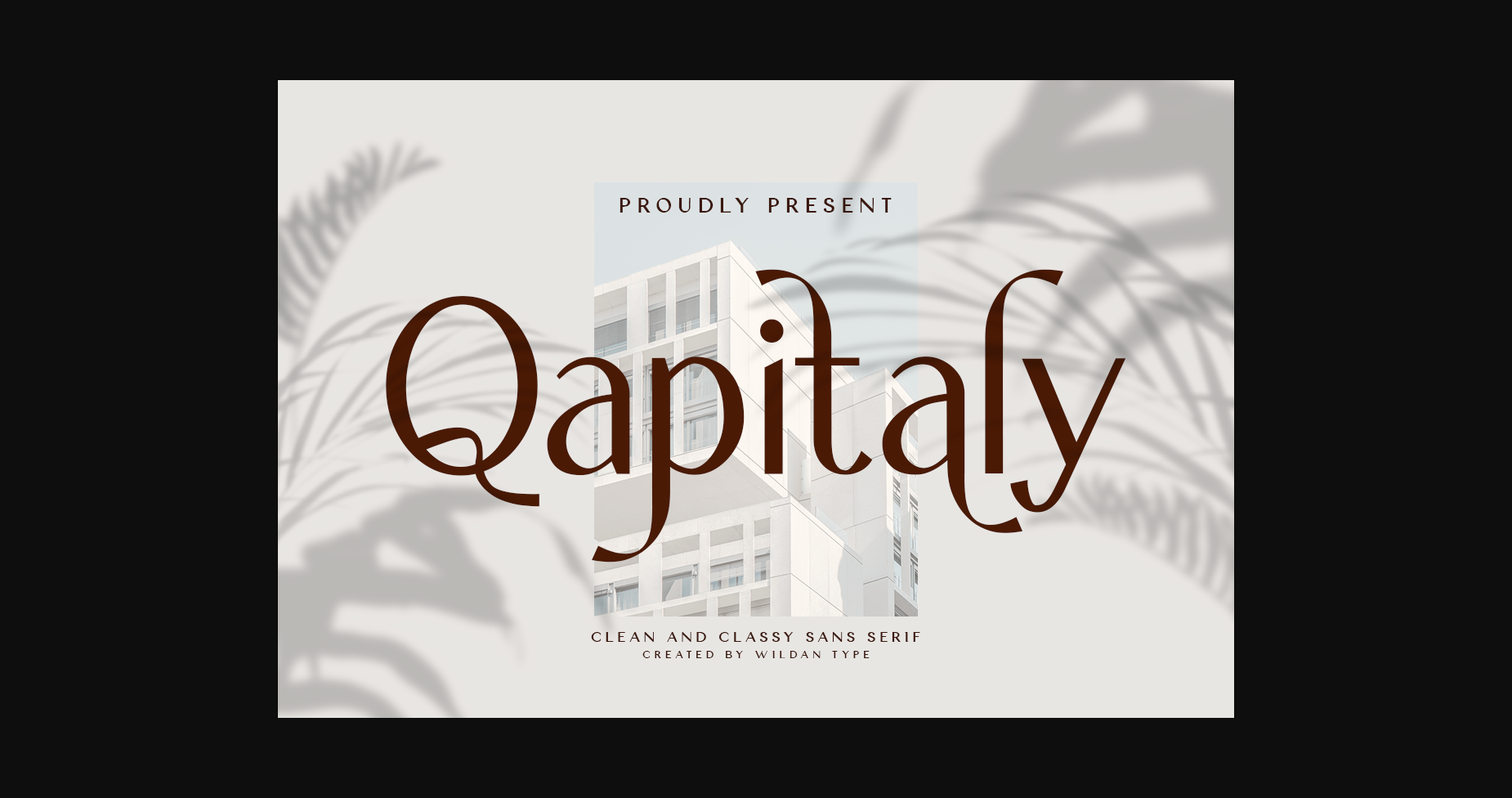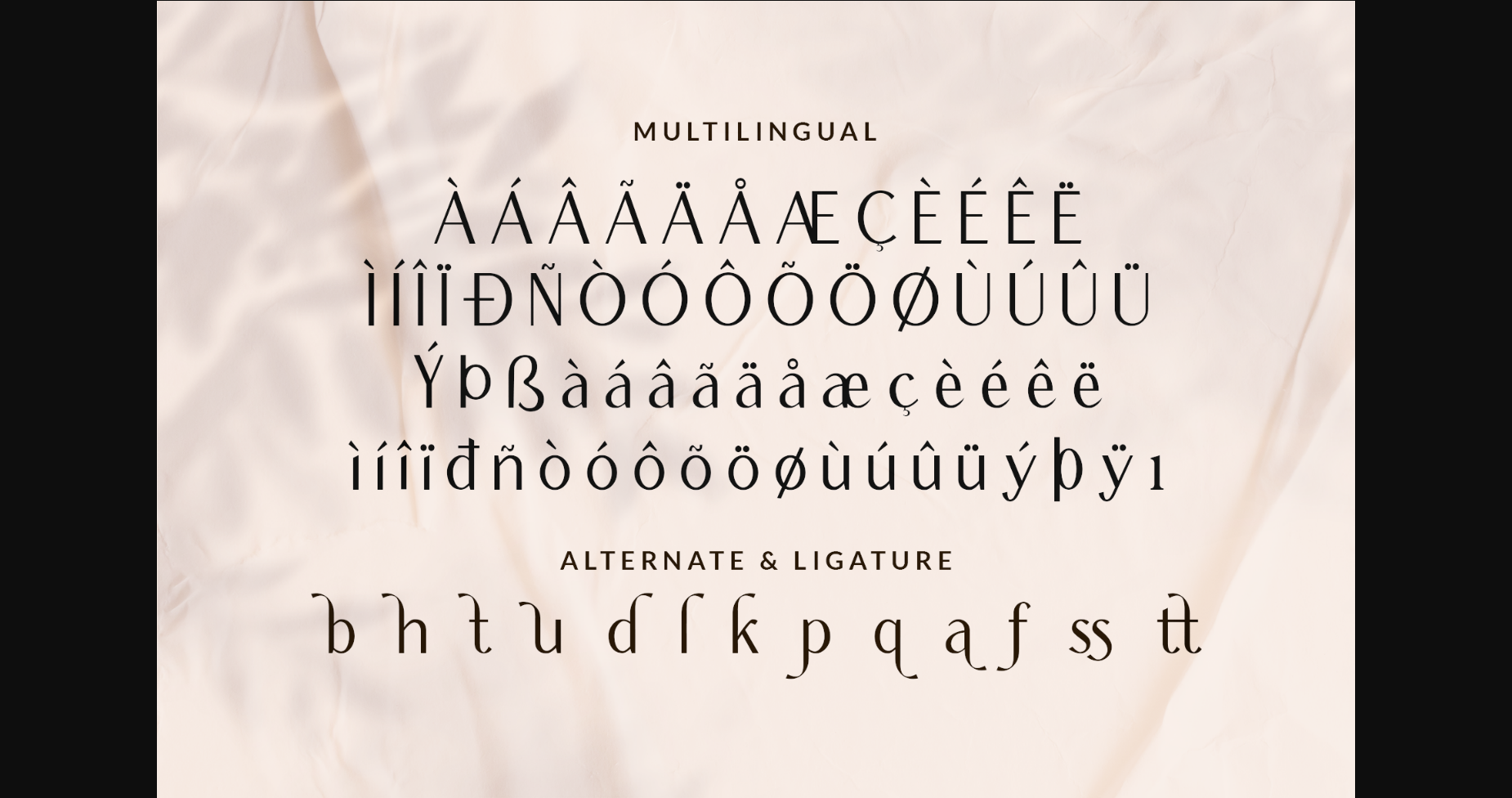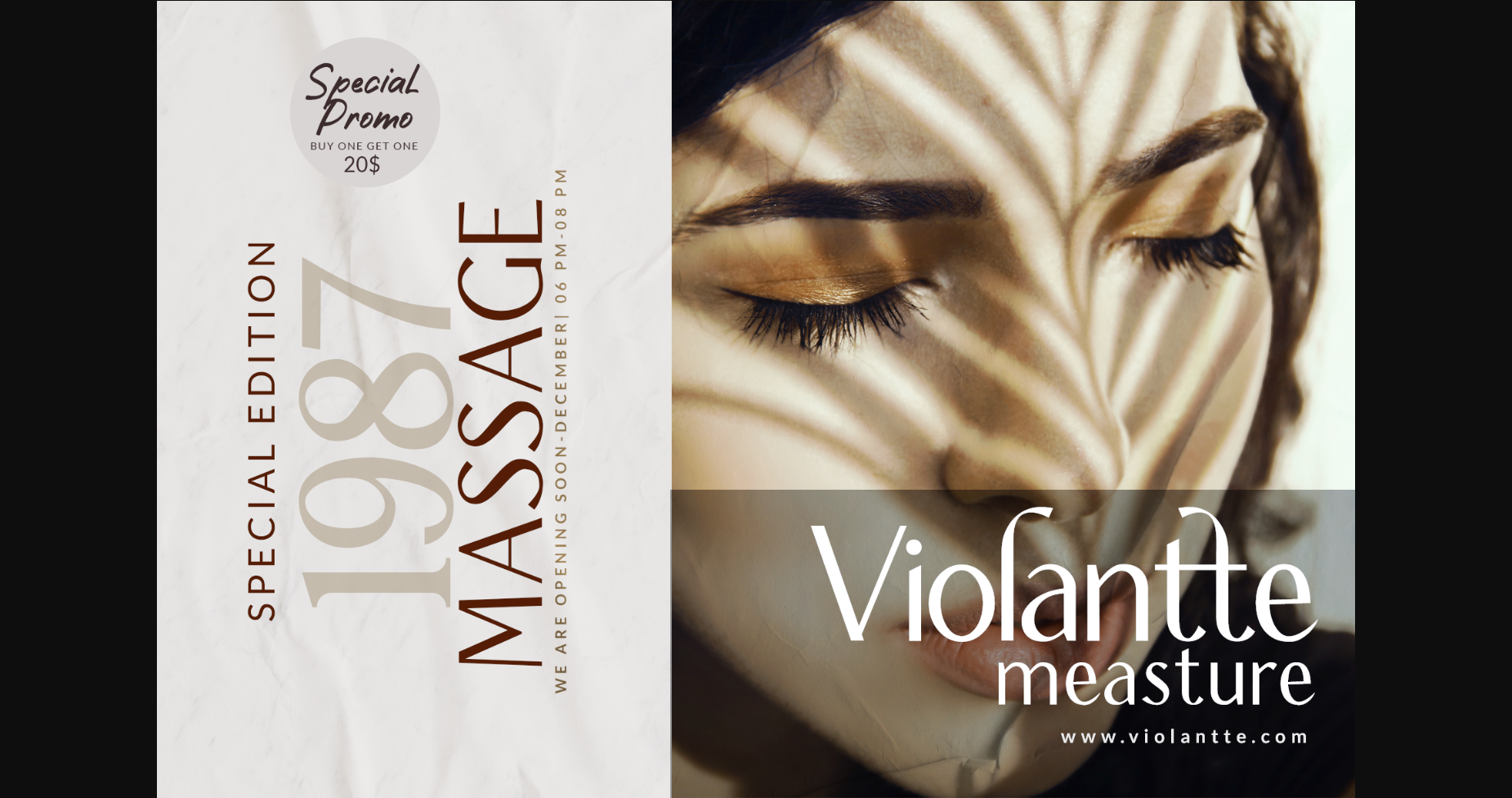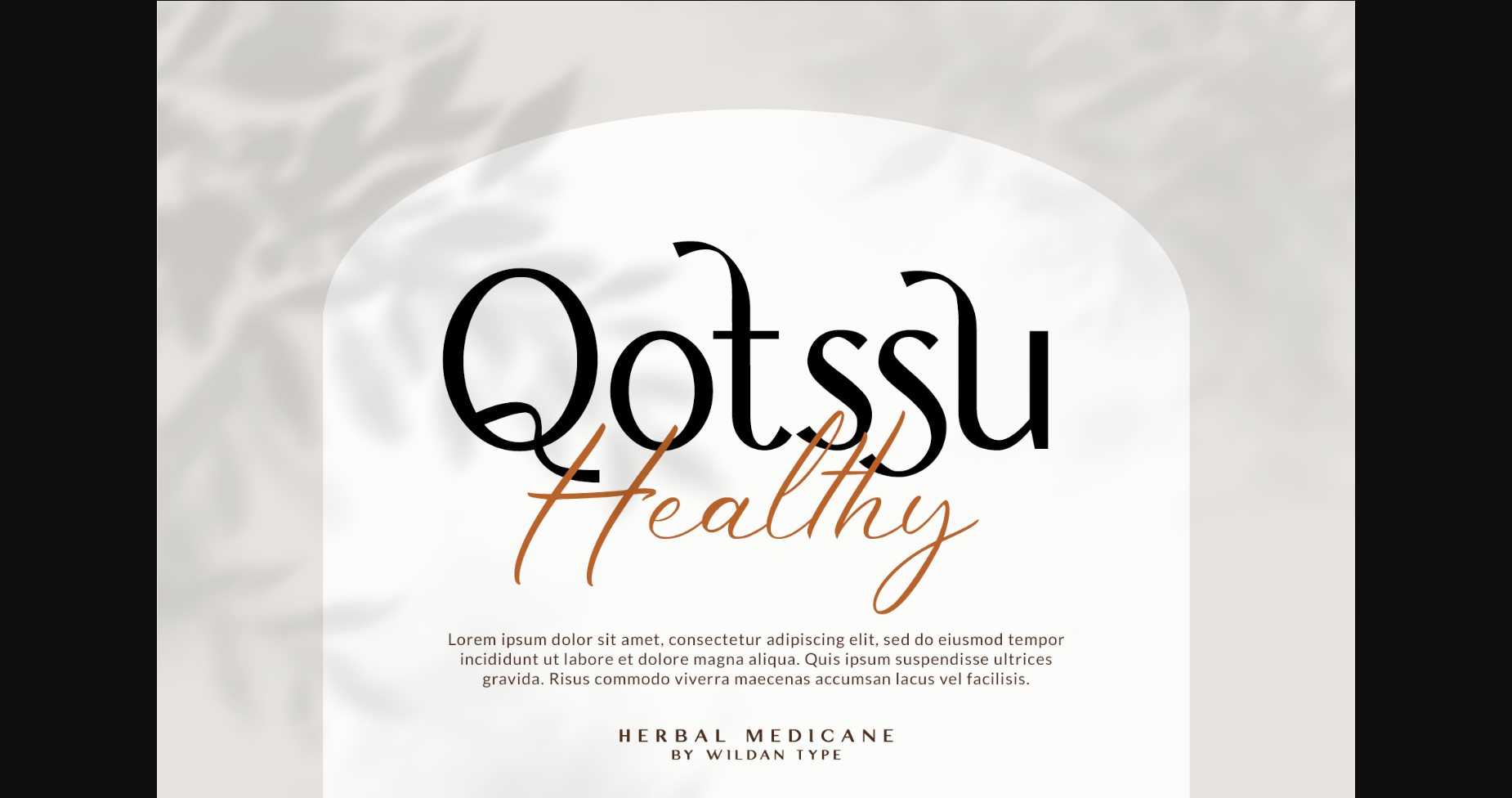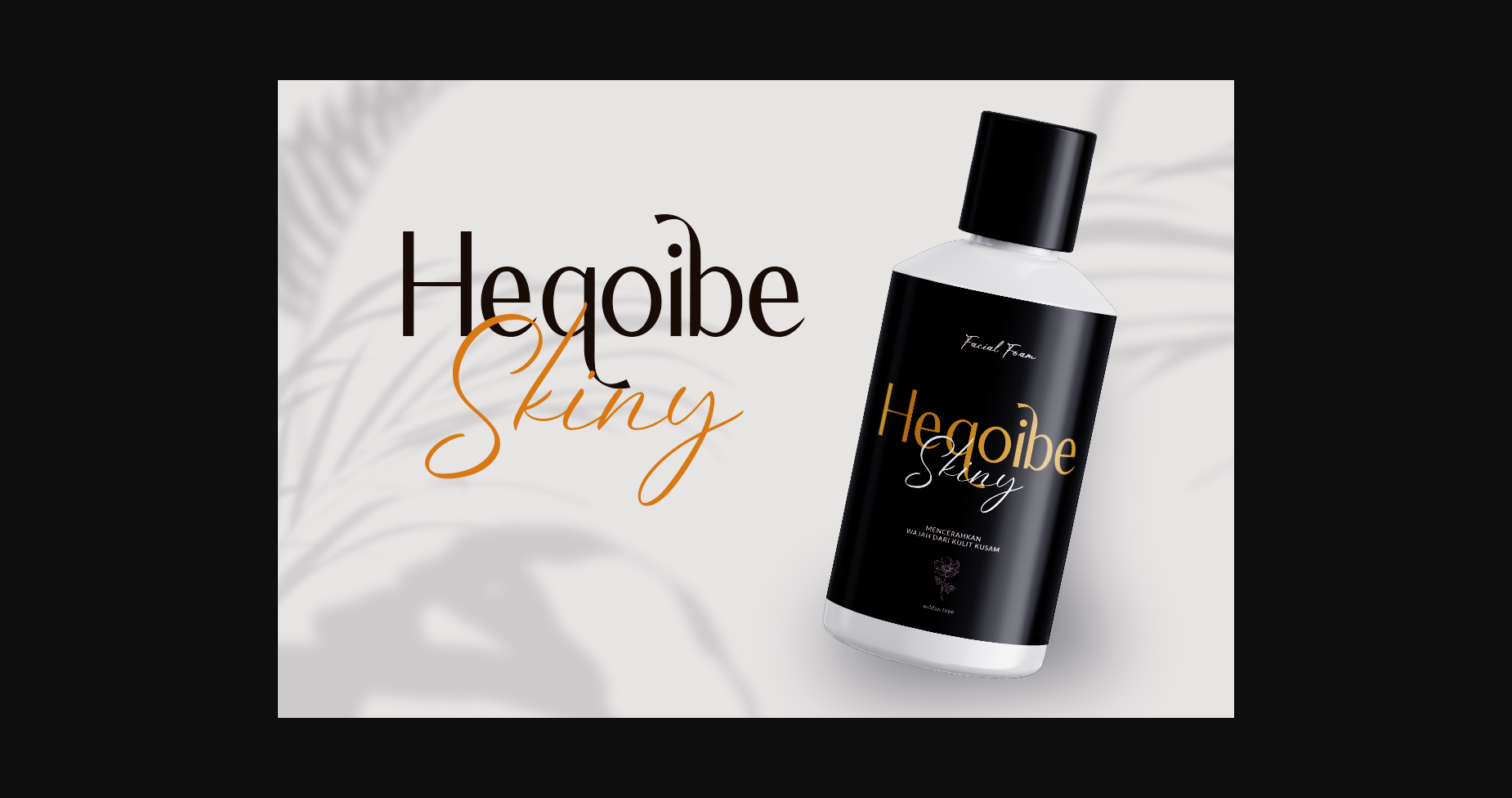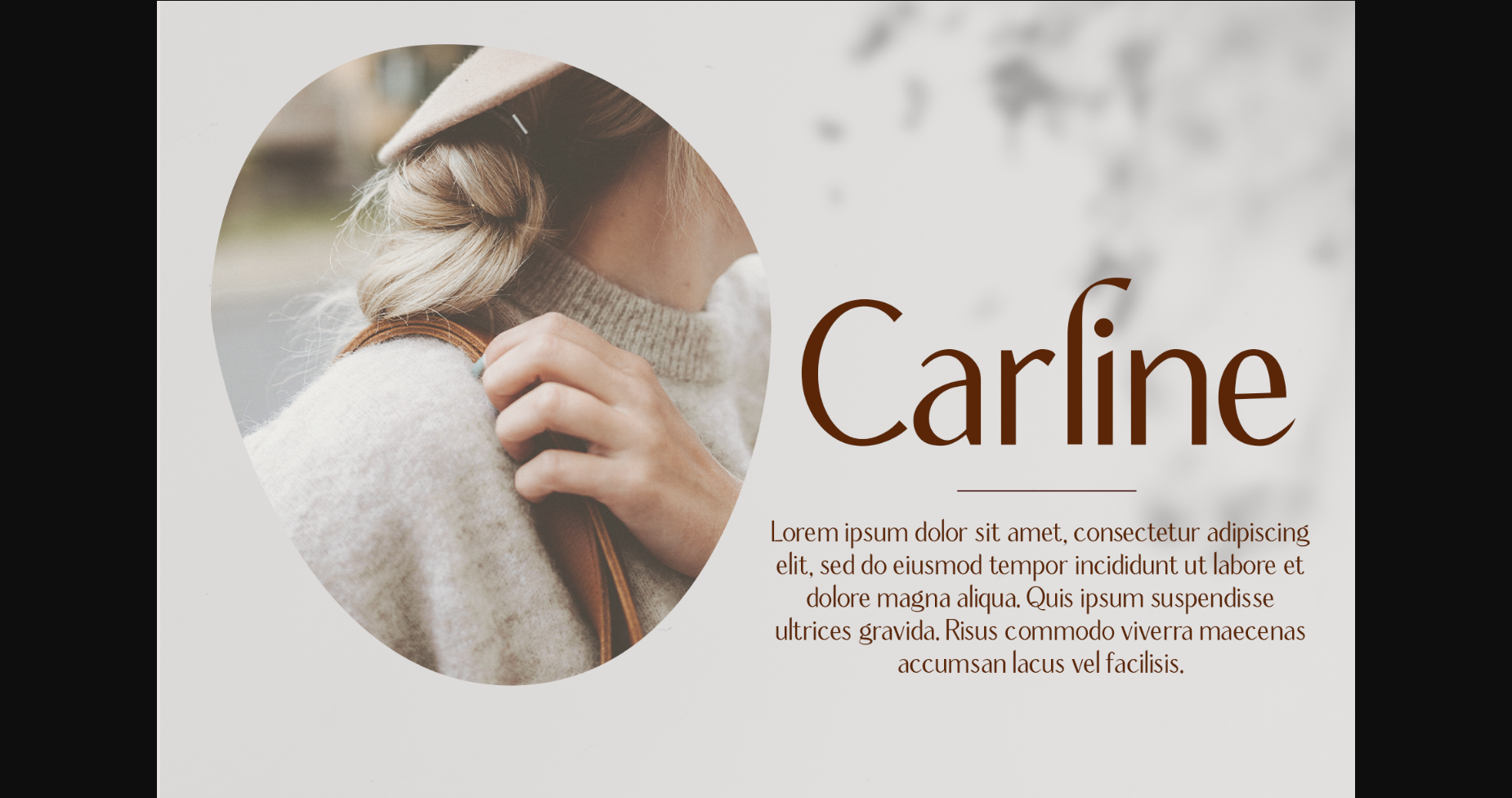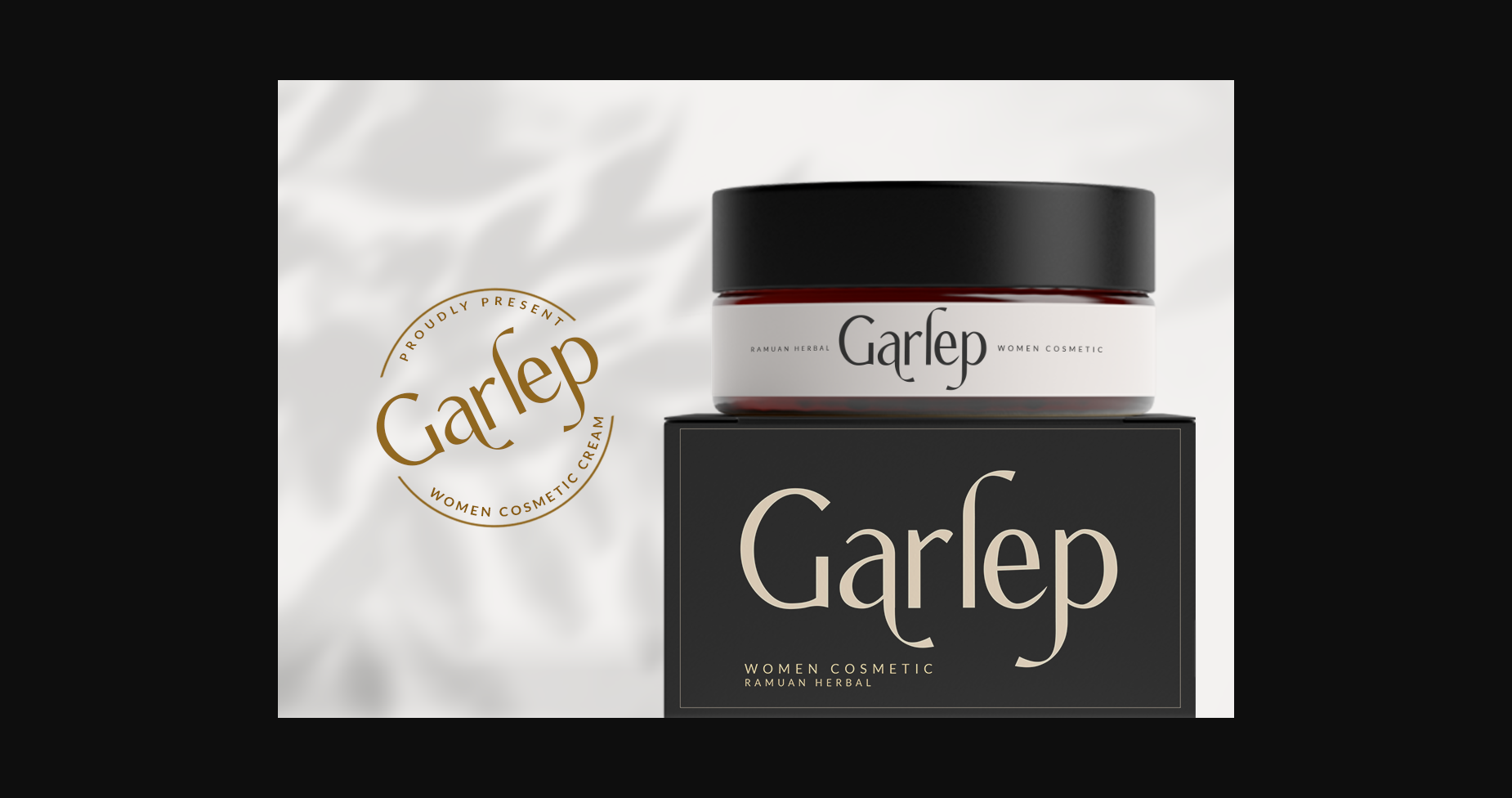
About Qapitaly Font
Qapitaly is a sans serif typeface inspired by the beauty of modern sans serif and calligraphic style, fused with an elegant appeal to blend with modern needs.
Qapitaly offers many possibilities to be applied in many graphic or editorial projects. Qapitaly also includes alternate and ligature. Suitable for short paragraphs, headlines, and display purposes such as branding, editorial, book covers, and packaging.